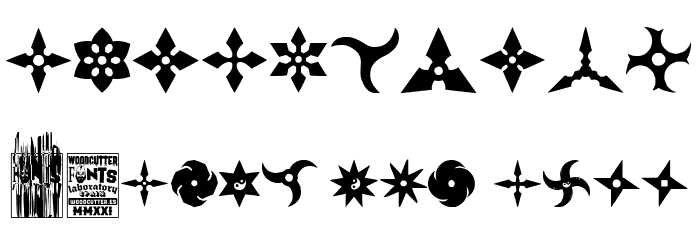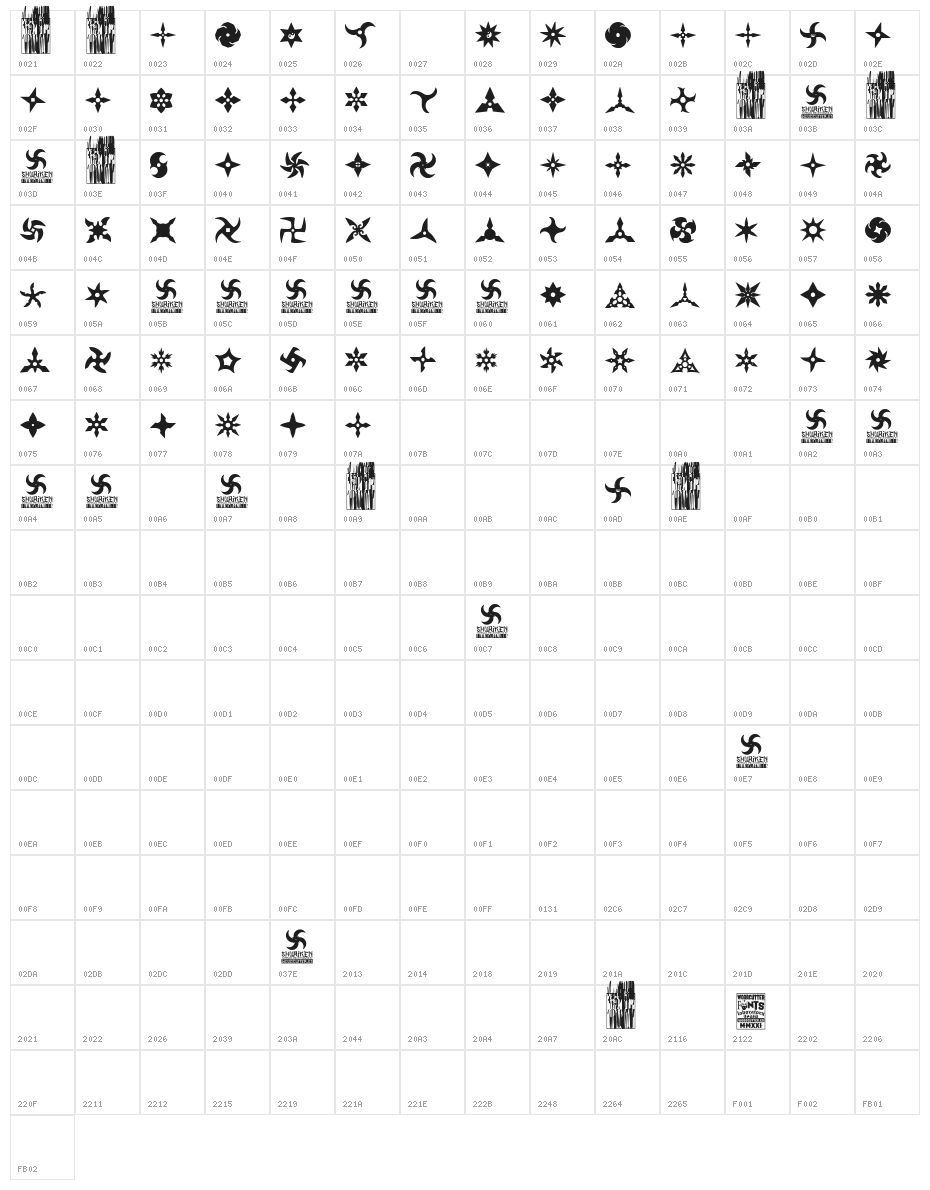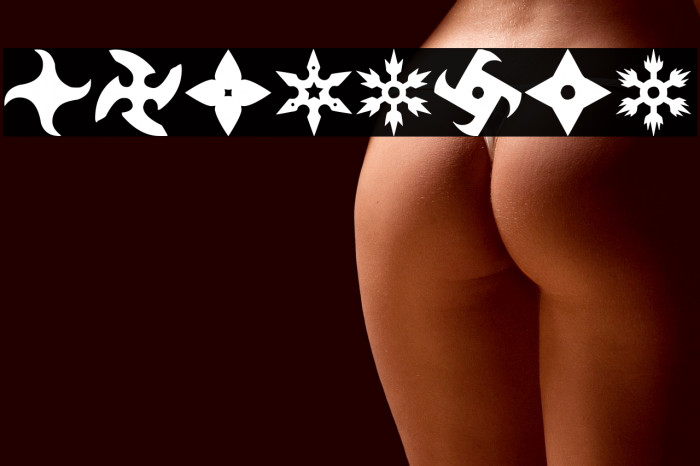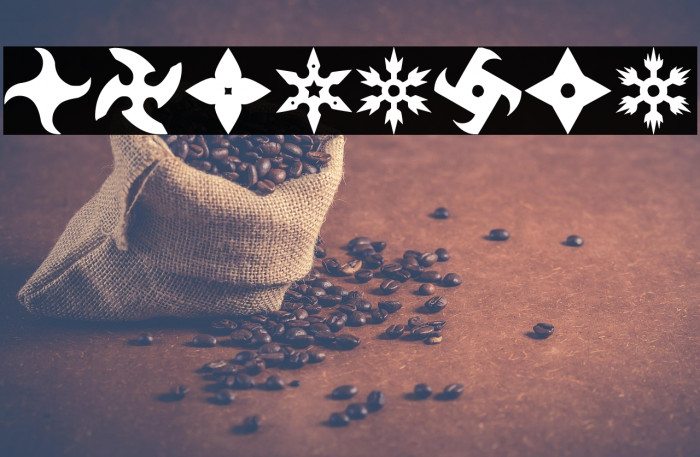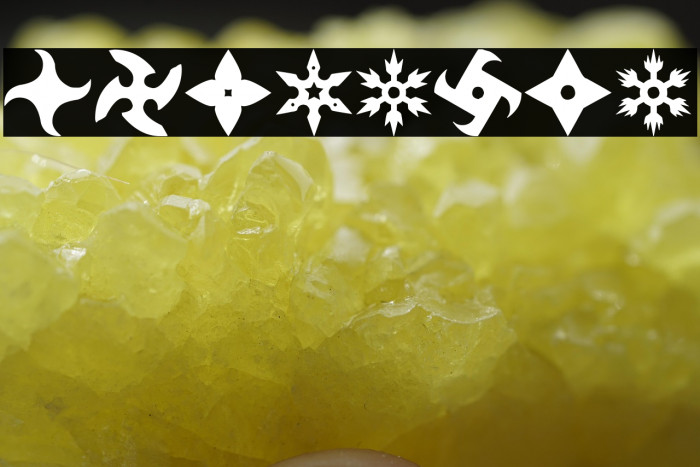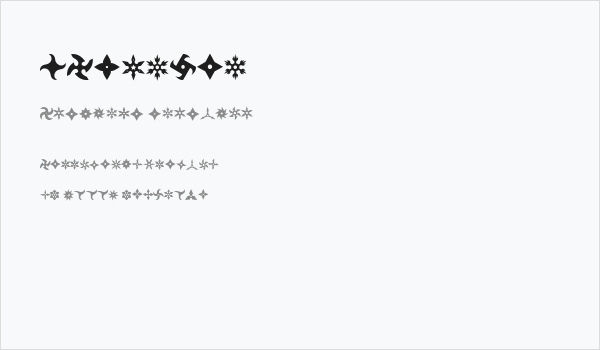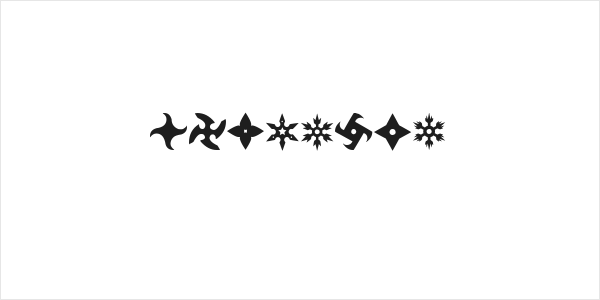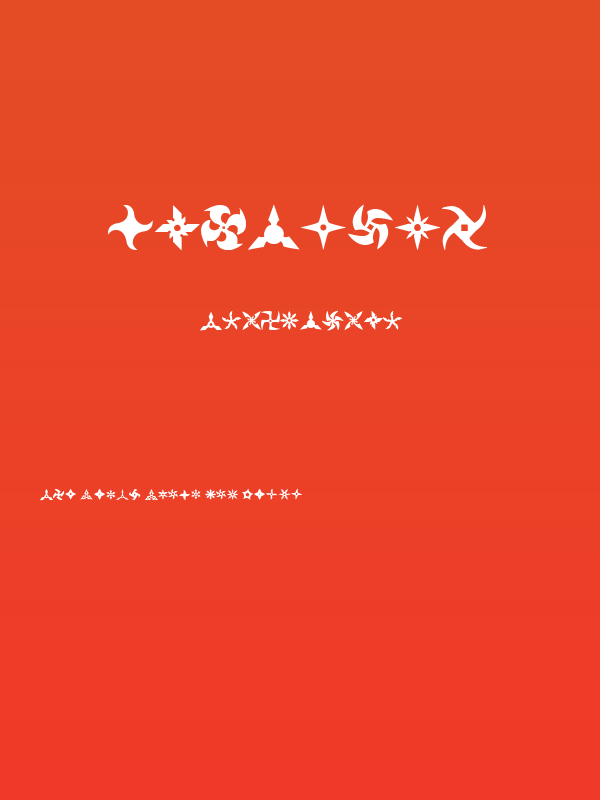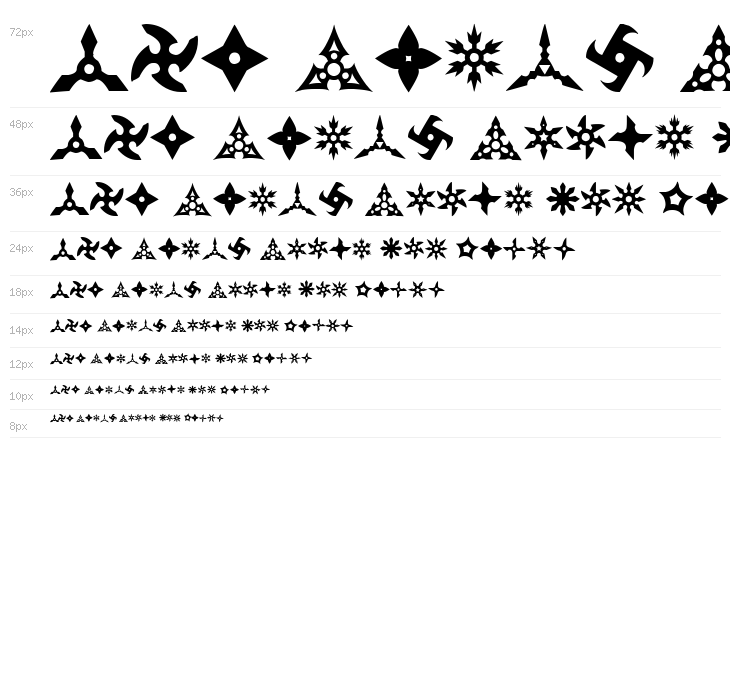
Shuriken Font
Shuriken Description
A decorative display font consisting entirely of various shuriken (throwing star) silhouettes, each character representing a unique ninja star shape with sharp, angular, and dynamic forms. The glyphs are bold, high-contrast, and visually striking, with no traditional letterforms present.
Fonts by Woodcutter
| Overall Style | Decorative, Thematic, Playful |
| Use Case | Logos, Headlines, Posters, Themed Graphics |
| Proposed Projects | Martial arts posters, themed event flyers, video game titles, comic books, decorative borders, or branding for ninja-related products. |